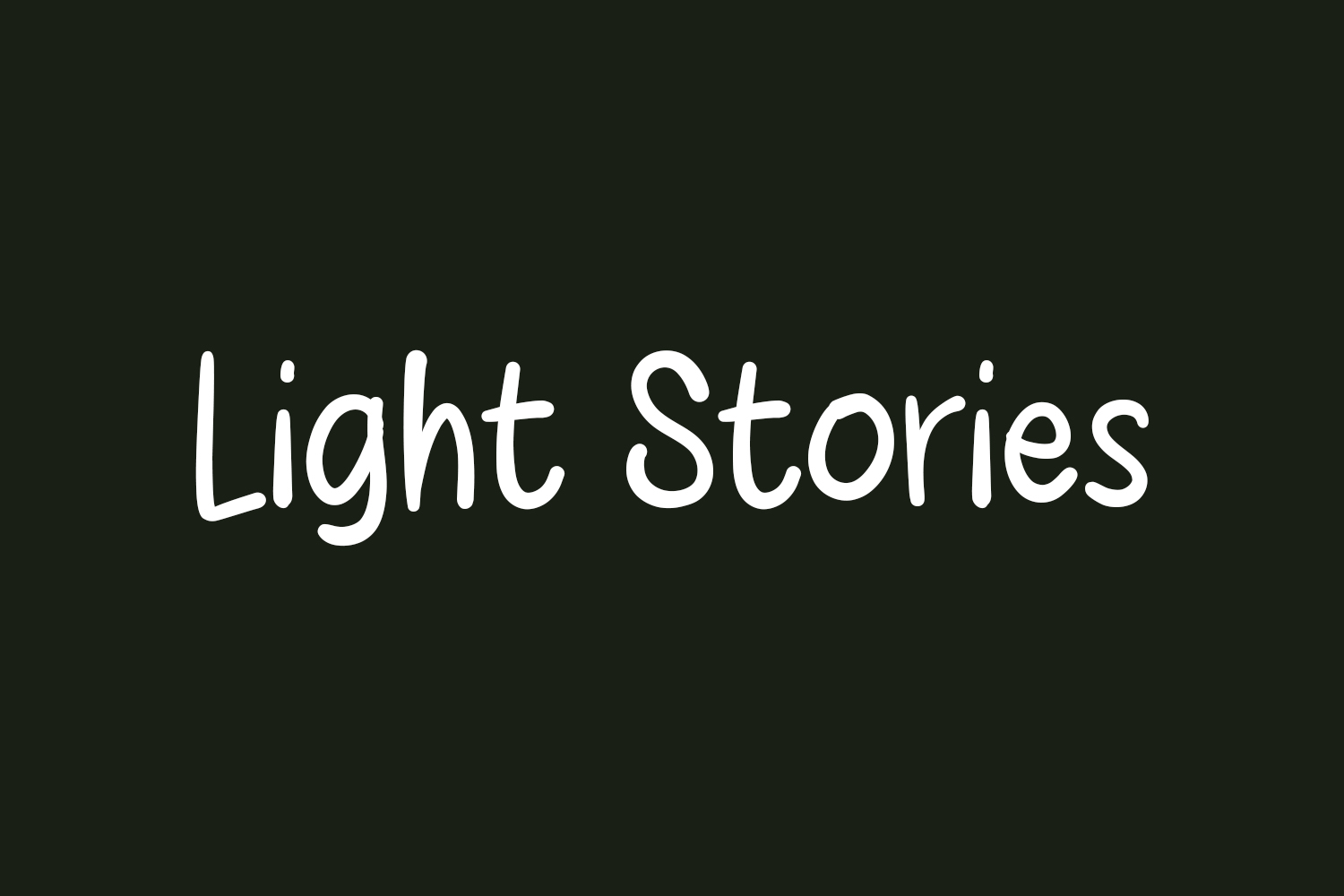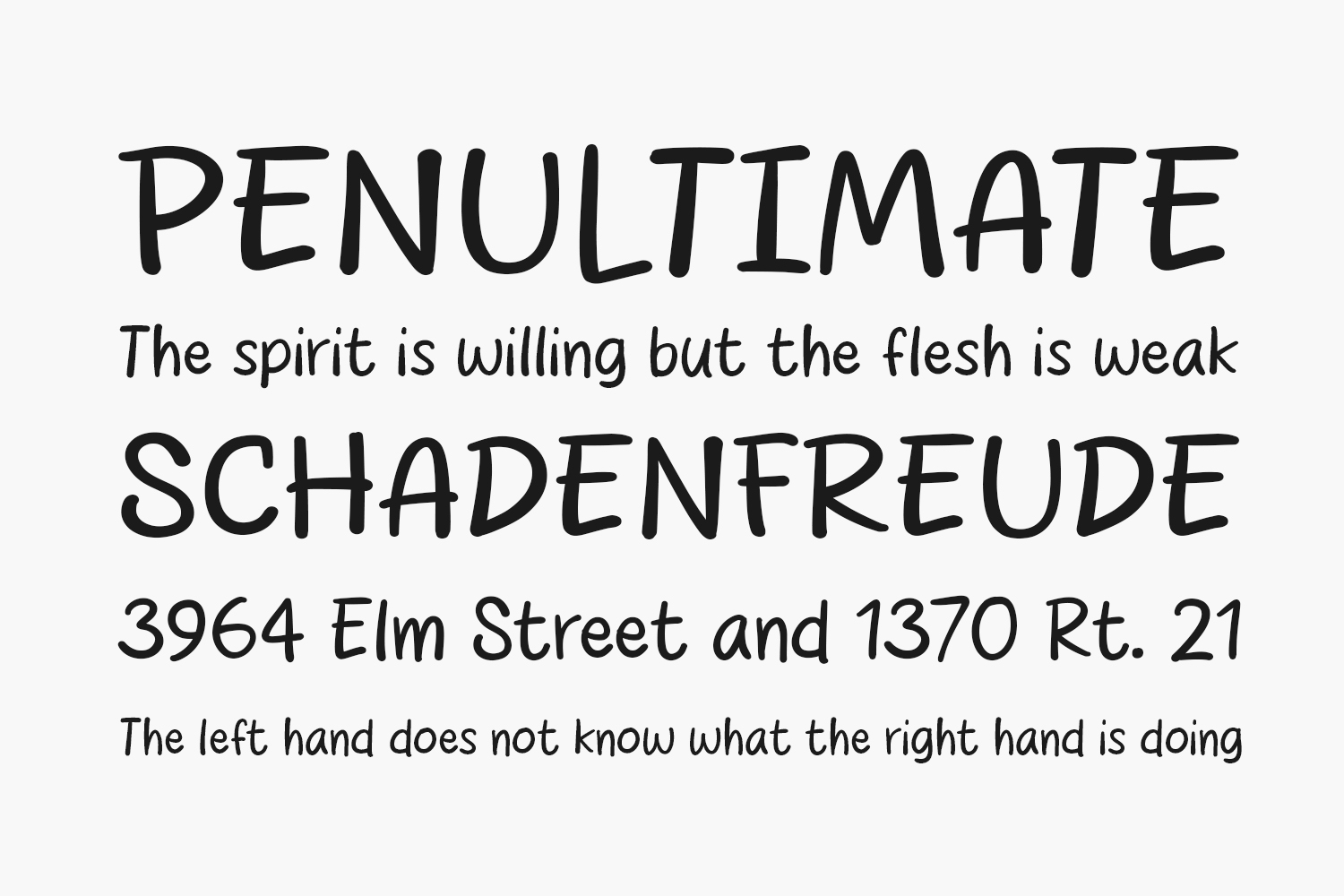
Light Stories – Free Hand‑Drawn Display Font with Playful Charm
Light Stories is a casual, hand‑drawn display font designed by Khurasan that brings a playful, organic vibe to your creative work. With its rounded strokes, slightly uneven baseline, and comic‑style letterforms, this free font adds warmth and spontaneity to designs like posters, logos, magazines, book covers, banners, and kids’ projects. Available in TTF and OTF formats (~268 KB), Light Stories supports both personal and commercial use under a freeware license. Elevate your visuals with this friendly and inviting typeface.
Why Choose Light Stories?
- Hand‑Drawn Character: Rounded, informal shapes convey authenticity and charm.
- Playful Personality: Slight irregularities and casual style make it ideal for fun, approachable designs.
- Versatile Display Use: Works beautifully in posters, banners, book covers, logos, and children’s materials.
Where to Use Light Stories?
- Posters & Banners: Grab attention with its friendly style and strong display presence.
- Children’s Books & Crafts: Rounded forms and approachable feel perfect for young audiences.
- Branding & Logos: Infuse fun and personality into playful or artisanal brands.
- Editorial & Cover Titles: Add character to magazine headlines, book covers, and blog visuals.
- Social Media Graphics: Use for quotes, event posts, and content targeting families or casual themes.
Design Tips with Light Stories
Use Light Stories at larger sizes (24 pt+) to preserve its fun character. Pair it with a clean sans-serif (e.g., Montserrat or Open Sans) to balance playfulness with structure. Bright, contrasting color palettes or bold illustrated backgrounds enhance its friendly energy. Avoid tight line-height—give it room to breathe to maintain its relaxed, hand‑drawn feel.